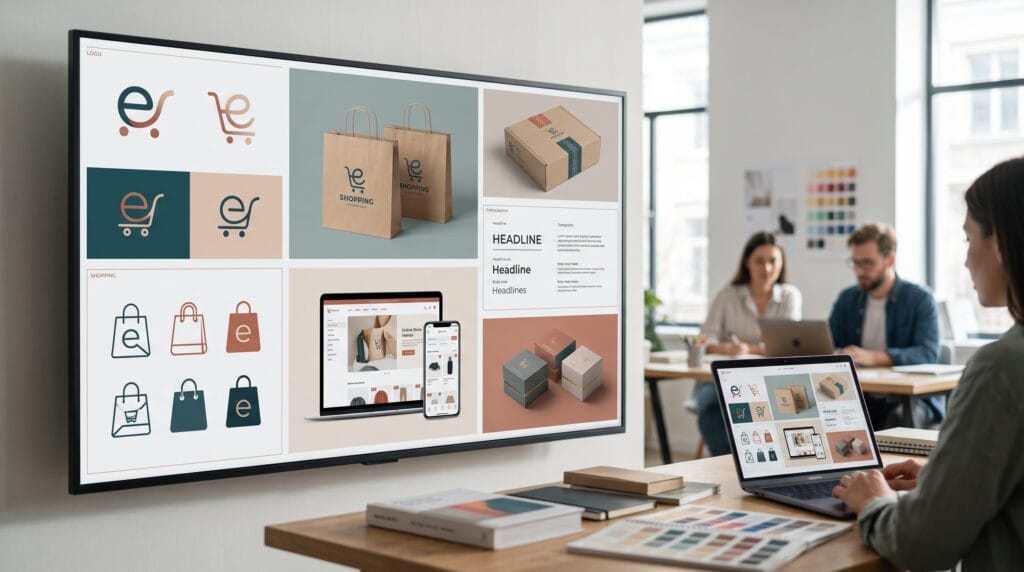
25 Ecommerce Logo Design Ideas That Build Strong Brands
In the highly competitive world of online retail, your logo is often the first thing customers notice. Before they explore your products, compare prices, or read reviews, they form an impression based on your brand identity. A well-designed logo communicates professionalism, builds trust, and makes your business memorable. The best ecommerce logo design ideas combine simplicity, versatility, and strategic branding to create an identity that stands out across websites, mobile apps, social media, packaging, and digital advertising.
Today’s ecommerce businesses compete globally, making strong visual branding more important than ever. Whether you’re launching a fashion store, electronics marketplace, beauty brand, or handmade product shop, your logo should represent your company’s personality and values while appealing to your target audience. This guide presents 25 ecommerce logo design ideas, explains current branding trends, and shares practical design tips for building a successful online brand.
Why Ecommerce Logo Design Matters
A professional logo helps businesses:
• Build customer trust
• Improve brand recognition
• Create memorable first impressions
• Support premium brand positioning
• Increase marketing consistency
• Differentiate from competitors
• Strengthen customer loyalty
A logo becomes the visual foundation of your entire brand.
Characteristics of a Great Ecommerce Logo
Successful ecommerce logos are typically:
• Simple
• Memorable
• Scalable
• Timeless
• Versatile
• Relevant
• Easy to recognize
• Effective in color and monochrome
A clean design performs well across digital and print media.
25 Ecommerce Logo Design Ideas
1. Minimalist Wordmark
A clean text-based logo that emphasizes your brand name.
Best for:
• Fashion brands
• Luxury stores
• Lifestyle businesses
2. Shopping Bag Icon
A shopping bag instantly communicates ecommerce.
Ideal for:
• Online marketplaces
• Retail stores
• General ecommerce businesses
3. Modern Monogram
Use your brand initials to create a sophisticated identity.
Works well for:
• Premium brands
• Designer products
• Boutique stores
4. Geometric Logo
Simple geometric shapes communicate stability and innovation.
Suitable for:
• Technology brands
• Electronics stores
• Modern retailers
5. Abstract Symbol
Abstract logos create unique visual identities.
Ideal for:
• Innovative startups
• Digital-first businesses
• Global brands
6. Negative Space Design
Use hidden shapes to create memorable visual effects.
• Clever branding
• Strong recall
• Modern appearance
7. Flat Design Logo
Flat logos remain highly effective.
Advantages:
• Fast recognition
• Excellent scalability
• Clean digital appearance
8. Gradient Logo
Subtle gradients create depth while maintaining simplicity.
Popular for:
• Technology
• SaaS
• Creative ecommerce brands
9. Typography-Focused Logo
Elegant typography alone can become a recognizable brand.
Perfect for:
• Fashion
• Beauty
• Premium lifestyle products
10. Circular Badge
Circular logos communicate reliability.
Often used by:
• Coffee brands
• Handmade products
• Artisan businesses
11. Shield Logo
Shields symbolize trust and security.
Suitable for:
• Cybersecurity products
• Financial services
• Premium marketplaces
12. Nature-Inspired Logo
Leaves, mountains, or natural elements reinforce sustainability.
Ideal for:
• Organic brands
• Eco-friendly products
• Outdoor retailers
13. Line Art Logo
Minimal outlines create elegant branding.
Perfect for:
• Home décor
• Jewelry
• Boutique stores
14. Mascot Logo
A friendly mascot adds personality.
Best for:
• Family brands
• Children’s products
• Entertainment
15. Luxury Monochrome Logo
Black-and-white branding creates timeless elegance.
Ideal for:
• Luxury fashion
• Premium accessories
• Designer products
16. Handwritten Logo
Script typography communicates authenticity.
Works well for:
• Handmade products
• Artisan goods
• Creative businesses
17. Icon + Wordmark Combination
Combine a recognizable icon with your business name.
Advantages:
• Flexible branding
• Strong recognition
• Easy scalability
18. Tech-Inspired Logo
Modern symbols communicate innovation.
Suitable for:
• Gadgets
• AI companies
• Software marketplaces
19. Vintage Badge
Retro branding creates nostalgia and authenticity.
Popular for:
• Coffee
• Craft products
• Heritage brands
20. Minimal Animal Symbol
Animals often represent brand personality.